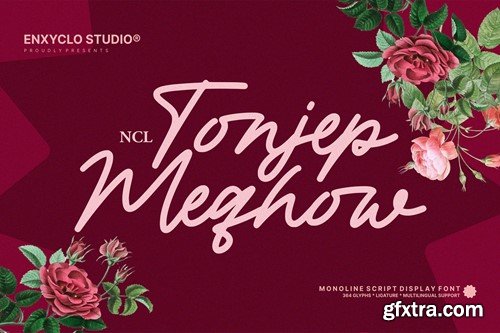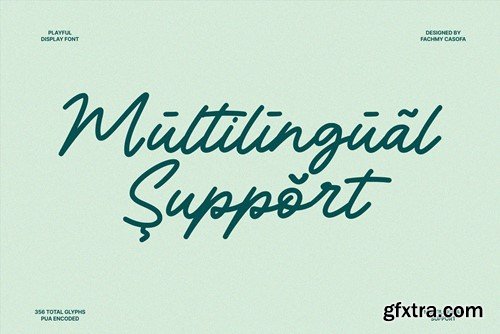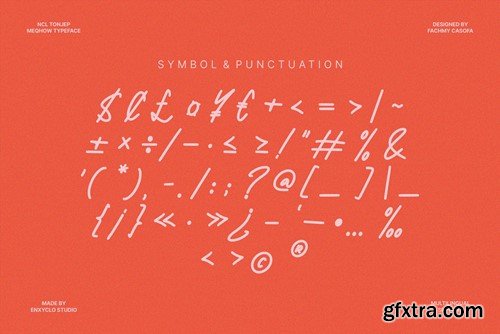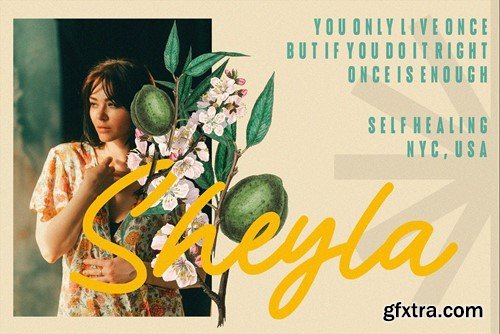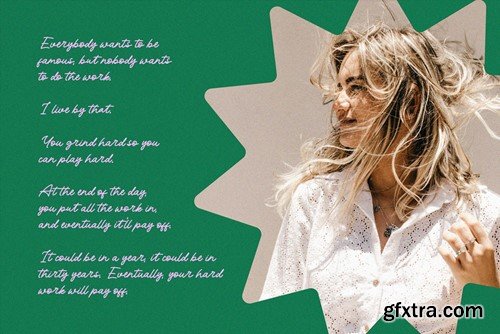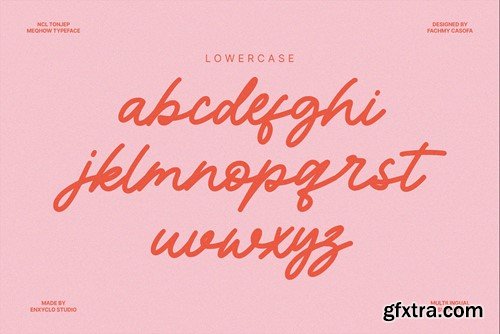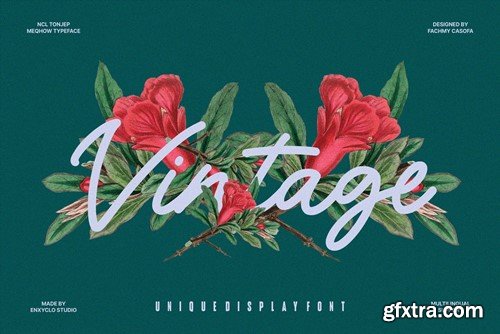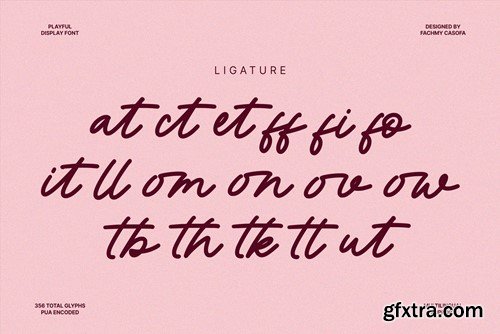
NCL Tonjep Meqhow - 单线手写体字体 YAPGFNB
NCL Tonjep Meqhow is a monoline script display font. Masterfully designed to become a true favorite, this font has the potential to bring each of your creative ideas to the highest level! It was purposely crafted to be used in large point sizes, although it doesn’t lose its magic in small point sizes. It is perfect for headline, digital ads, magazines, website, poster, branding, and logos. No matter the topic, this font will be an incredible asset to your fonts’ library, as it has the potential to elevate any creation. With this beautiful font, absolutely you can make your project stand out from the rest. FEATURES